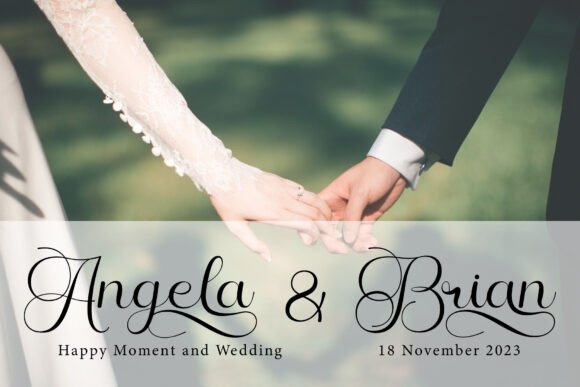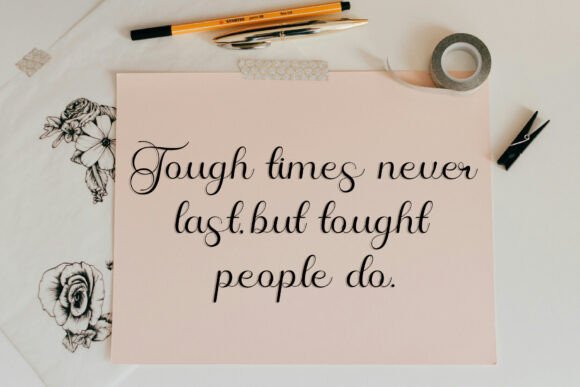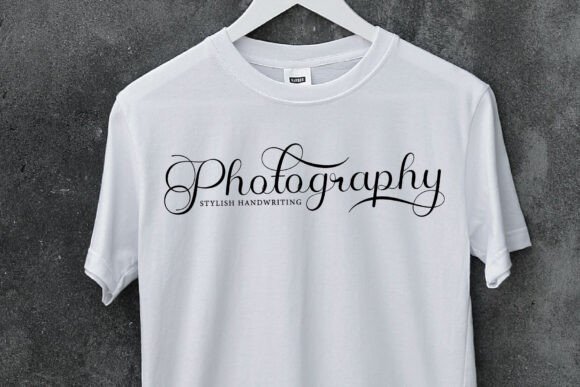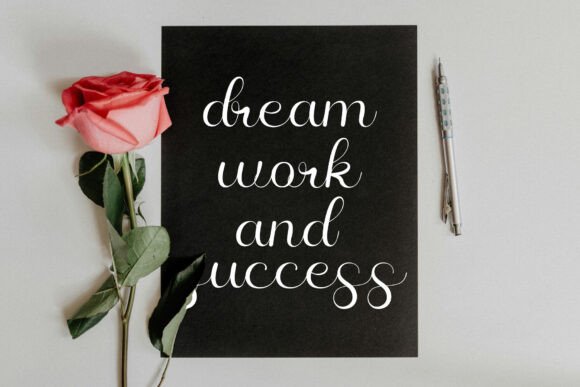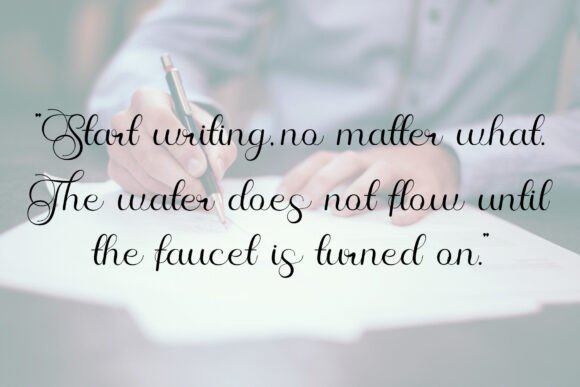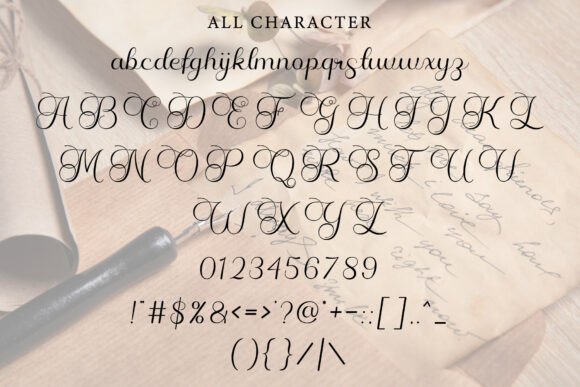
Introducing Autography Font: Elevate Your Designs with Elegance
Are you a designer or crafter looking for a font that exudes style and sophistication? Look no further than Autography Font, a stunning handwritten font that is sure to elevate your designs to the next level. In this article, we’ll dive into the features and benefits of Autography Font, and explore how it can be used to create beautiful and professional-looking designs.
What is Autography Font?
Autography Font is a stylish and incredibly elegant handwritten font that is perfect for adding a touch of personality to your designs. With its flowing script and delicate lines, Autography Font looks stunning on a variety of design materials, including wedding invitations, thank you cards, quotes, greeting cards, logos, business cards, and more.
Key Features of Autography Font
- PUA Encoded: Autography Font is PUA (Private Use Area) encoded, which means that you can access all of the glyphs and alternates with ease. This makes it simple to customize your designs and add unique touches.
- Handwritten Elegance: Autography Font has a beautiful, handwritten feel that adds a touch of elegance and sophistication to any design.
- Versatile: Autography Font can be used on a wide range of design materials, from wedding invitations and greeting cards to logos and business cards.
Benefits of Using Autography Font
So why choose Autography Font for your designs? Here are just a few benefits of using this beautiful font:
- Adds a Personal Touch: Autography Font adds a personal touch to your designs, making them feel more unique and special.
- Enhances Readability: The flowing script of Autography Font makes it easy to read, even at small sizes.
- Increases Visual Appeal: The elegant lines and delicate curves of Autography Font make it a visually appealing choice for any design.
How to Use Autography Font in Your Designs
Using Autography Font in your designs is easy! Here are a few tips to get you started:
- Pair it with Other Fonts: Autography Font pairs well with a variety of other fonts, including serif and sans serif fonts. Experiment with different combinations to find the one that works best for your design.
- Use it for Headings and Titles: Autography Font is perfect for headings and titles, where its elegant script can really shine.
- Add a Personal Touch: Use Autography Font to add a personal touch to your designs, such as on wedding invitations or thank you cards.
Design Ideas Using Autography Font
Here are a few design ideas to get you started with Autography Font:
- Wedding Invitations: Use Autography Font to create beautiful and elegant wedding invitations that set the tone for the big day.
- Greeting Cards: Add a personal touch to your greeting cards with Autography Font, perfect for special occasions like birthdays and holidays.
- Logos and Branding: Use Autography Font to create a unique and memorable logo for your business or brand.
| Font Name | Autography Font |
| Author | Kido Studio |
In conclusion, Autography Font is a beautiful and elegant handwritten font that is perfect for designers and crafters looking to add a touch of sophistication to their designs. With its PUA encoding, flowing script, and delicate lines, Autography Font is sure to elevate your designs to the next level. Whether you’re creating wedding invitations, greeting cards, logos, or business cards, Autography Font is a versatile and stylish choice that’s sure to impress.